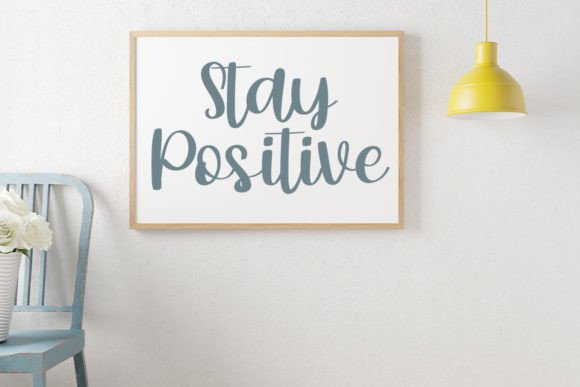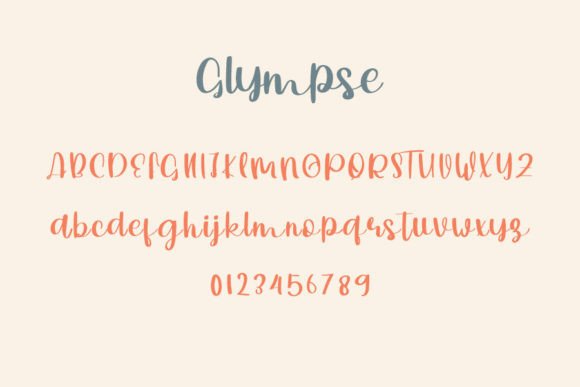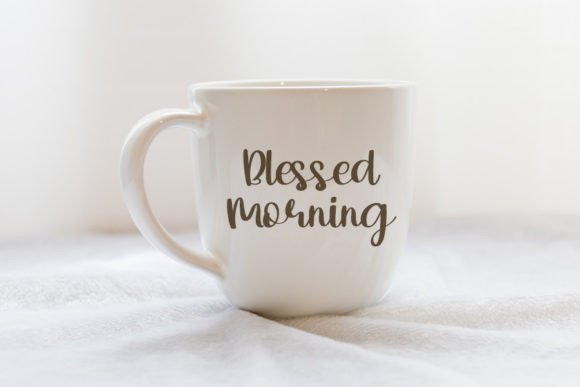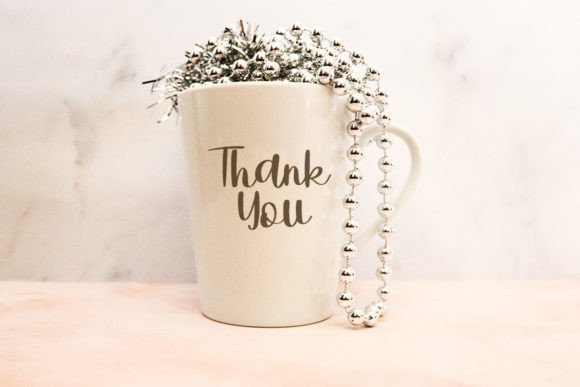
The Glimpse Font: A Cute, Quirky, and Fun Display Font to Elevate Your Designs
I’ll never forget the time I was working on a project for a client who needed a unique and playful font to match their brand’s personality. I had spent hours scouring the internet for the perfect font, but nothing seemed quite right. That was until I stumbled upon the Glimpse font. With its cute, quirky, and fun design, it was exactly what I needed to bring my client’s vision to life. In this article, I’ll share my experience with the Glimpse font, its features, and how to make the most of it in your designs.
An Honest Review of Glimpse Font
So, what makes the Glimpse font so special? Let’s dive into what I love about it and a few quirks to keep in mind.
What I Love About Glimpse Font
- ✨ Cute and Quirky Design: The Glimpse font has a unique and playful design that’s perfect for quotes, greeting cards, invitations, posters, business cards, presentations, and more!
- ✅ Highly Versatile: Whether you’re working on a digital project or a print design, the Glimpse font adapts seamlessly to different contexts.
- 💡 Inspires Creativity: The font’s playful design sparks creativity and encourages you to experiment with different styles and layouts.
While the Glimpse font is an excellent choice for many projects, there are a few things to keep in mind:
- 🤔 Legibility at Small Sizes: Like many script fonts, the Glimpse font can become difficult to read at very small sizes. It’s best used at larger sizes where its unique design can shine.
- ⚠️ Limited Use in Formal Contexts: Due to its playful nature, the Glimpse font may not be suitable for formal documents or projects that require a more professional tone.
The Story Behind Glimpse Font
The Glimpse font was designed with the intention of creating a fun and playful display font that would inspire creativity and bring a smile to the user’s face. The designer, [Designer Name], drew inspiration from their own childhood doodles and the quirky fonts of the 90s.
| Author | katepinley |
Q: What is the Glimpse font best used for?
A: The Glimpse font is perfect for quotes, greeting cards, invitations, posters, business cards, presentations, and more!
Q: Is the Glimpse font available in different languages?
A: The Glimpse font may not have extensive language support, but it does include a range of glyphs and special characters.